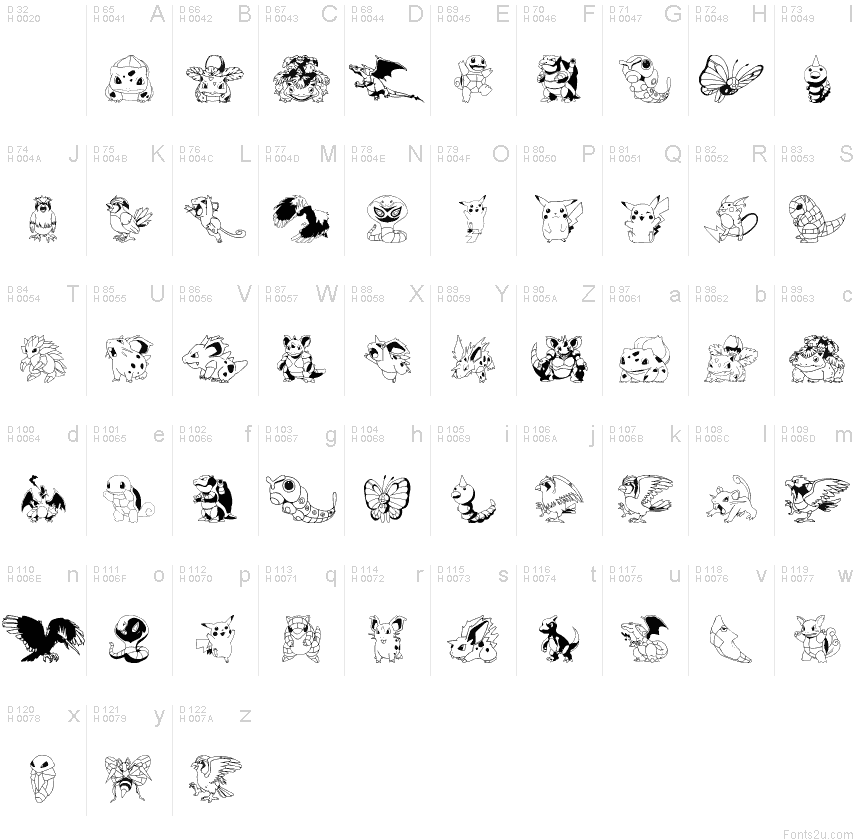
Pokemon Kiddy Ding
Pokemon Kiddy Ding by House of Lime is a free cartoon dingbat font built around cute, bold creature icons with thick black outlines and lively mascot energy. The set mixes round, friendly figures with winged and coiled silhouettes, so the overall feel lands somewhere between sticker art and Saturday-morning character design.
It works naturally for kids' party invites, scrapbook pages, reward charts, themed packaging, and playful poster accents, where a free font of creature marks can do more than plain ornaments. Because the drawings read as self-contained little characters rather than abstract symbols, the font also fits short title cards, badges, and quick decorative callouts where one icon can carry the whole idea.